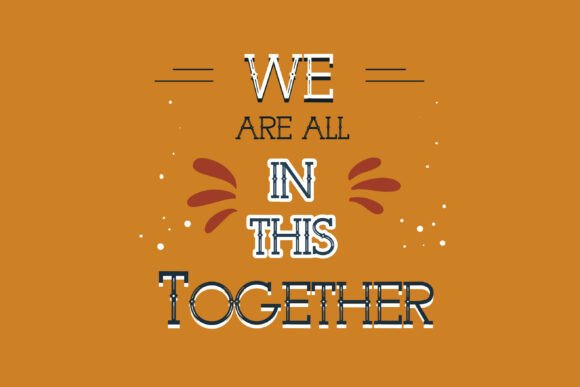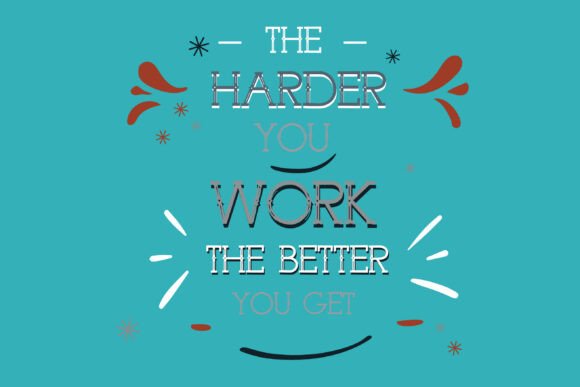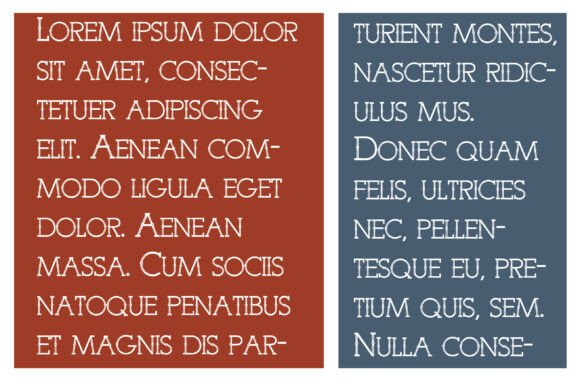
Introduction to Luchador Font
Step into the ring with Luchador, an elegant display serif that captures a โ€œornate-and-over-the-topโ€ soul.
This font features refined, high-contrast letterforms uniquely characterized by rhythmic โ€œballโ€ terminals and delicate spurred accents that bridge the gap between Victorian-era show posters and modern luchalibre branding With its medium structural weight and theatrical personality, Luchador is the premier choice for independent craft brewery identities, boutique circus-themed logos, vintage apothecary labels, and high-impact โ€œfancy-and-fearlessโ€ social media headers.